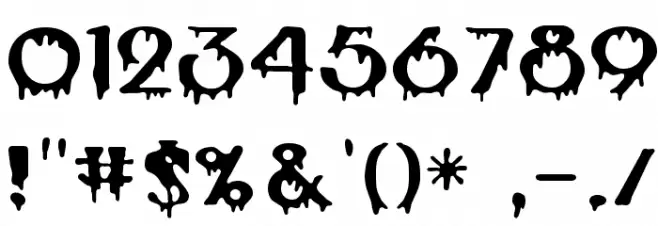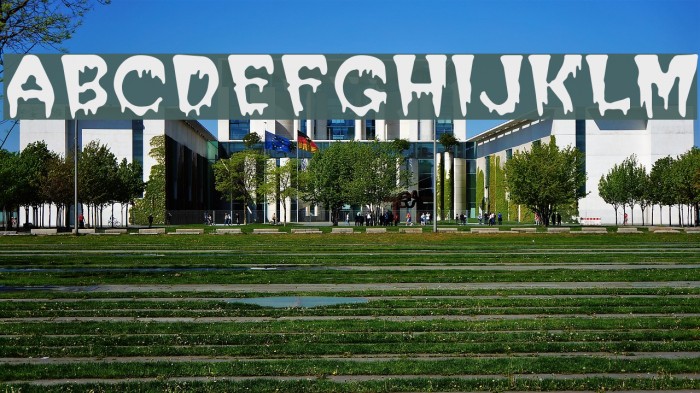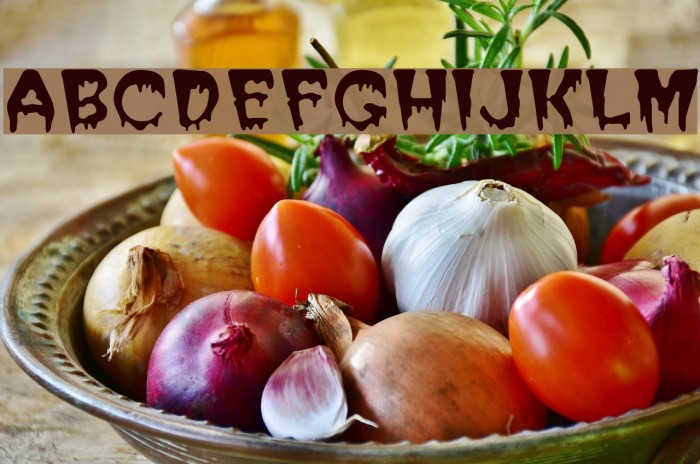
Halloween Regular Font
Halloween Regular Description
This font features a spooky, dripping style that evokes a sense of horror and mystery, perfect for Halloween-themed designs. The characters have a bold, uneven appearance with irregular edges that mimic the look of melting wax or dripping blood. The uppercase and lowercase letters maintain a consistent style, enhancing the eerie aesthetic. Numbers and special characters are also designed with the same dripping effect, ensuring a cohesive look across all text elements. This font is ideal for creating eye-catching headlines, posters, and invitations that require a touch of the macabre.
| Proposed Projects | Perfect for Halloween posters, haunted house invitations, horror movie titles, and themed party decorations. |